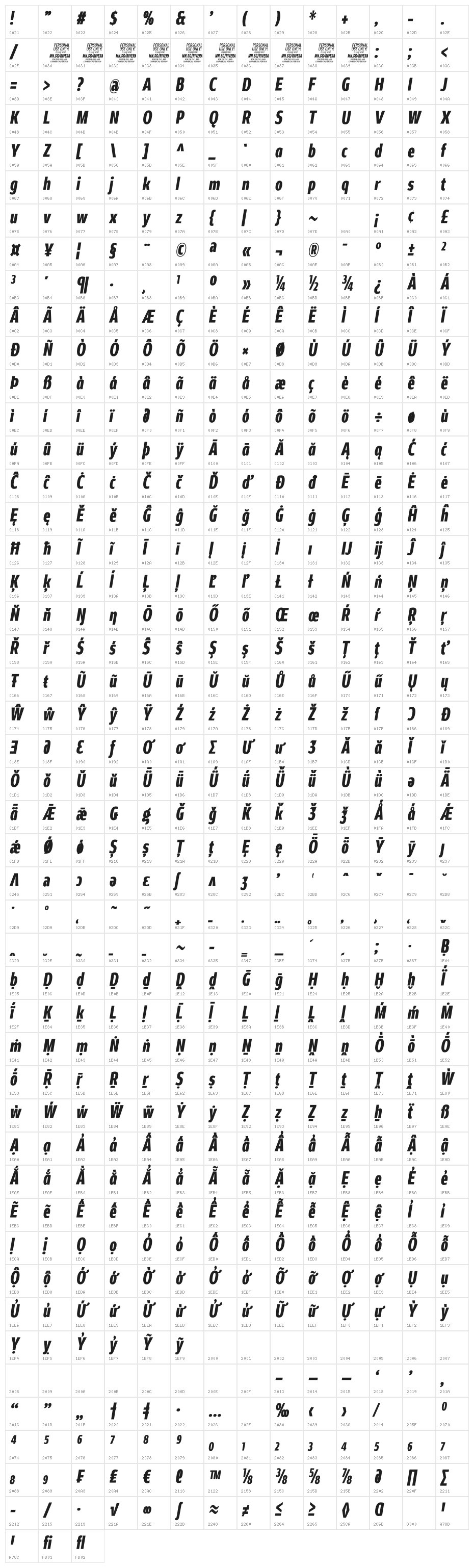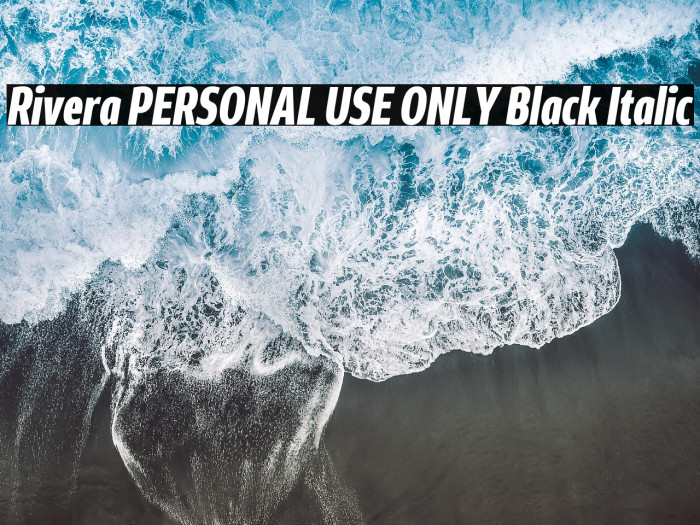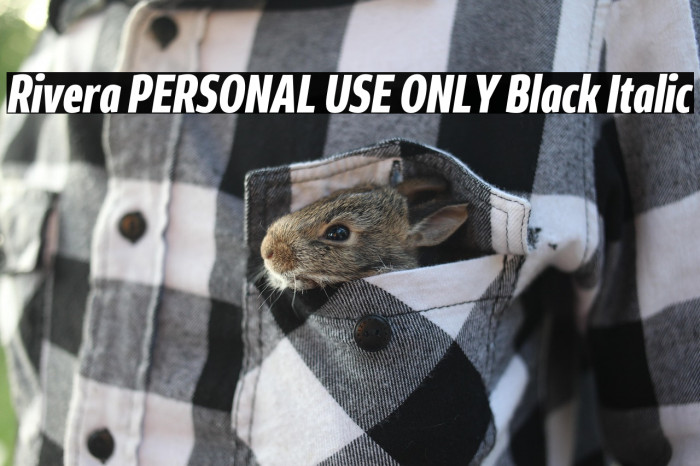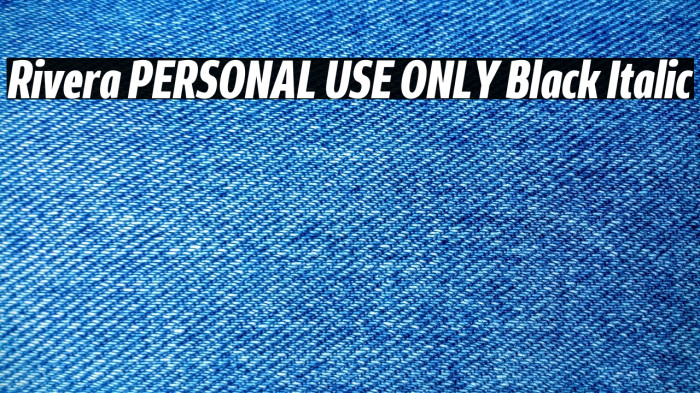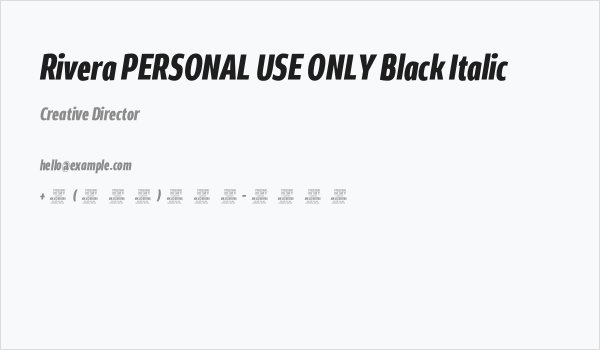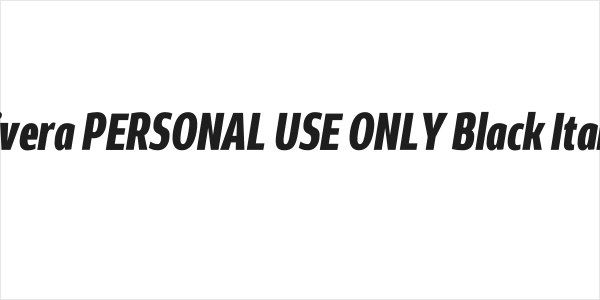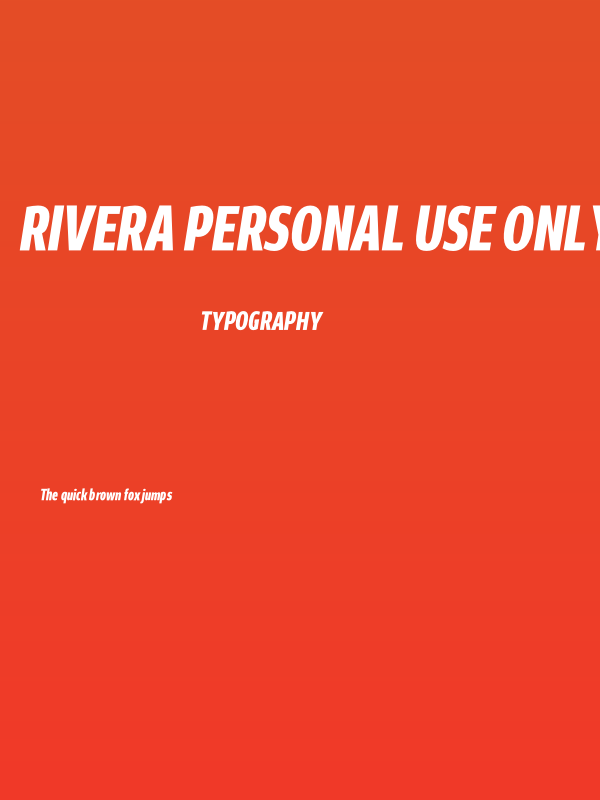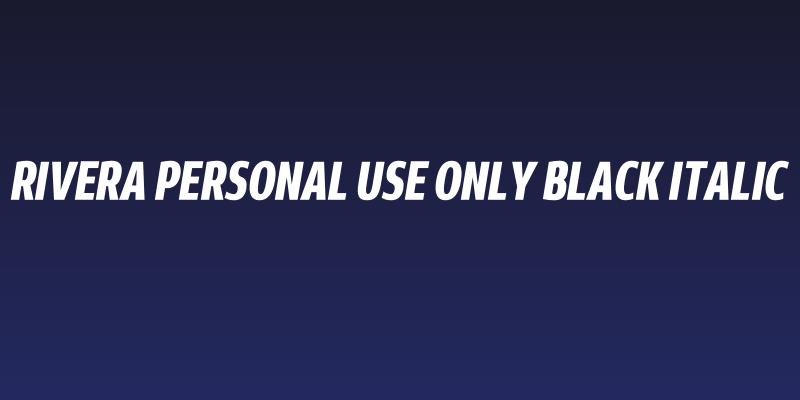
Rivera PERSONAL USE ONLY Black Italic Font
Rivera PERSONAL USE ONLY Black Italic Description
This font exhibits a bold and dynamic style with a strong italic slant, giving it a sense of movement and urgency. The characters are thick and robust, providing a powerful visual impact. The uppercase letters are tall and commanding, while the lowercase letters maintain a consistent weight and style. The numbers and special characters are designed to match the boldness of the alphabet, ensuring uniformity across all text elements. The overall appearance is modern and assertive, making it suitable for projects that require a strong visual presence.
| Proposed Projects | Ideal for headlines, posters, branding, and advertising where a strong, impactful font is needed. |